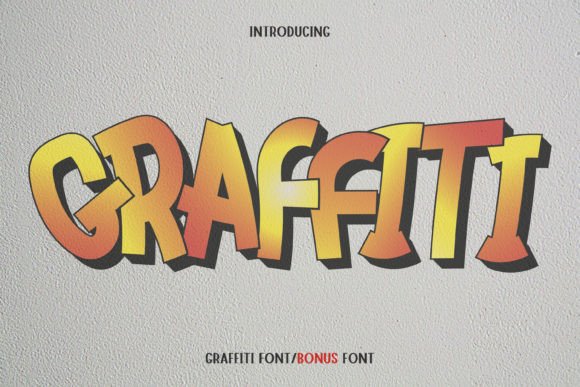
Graffiti Font: The Ultimate Guide to Creating Eye-Catching Headlines and Logos
Graffiti font is a type of display font that has gained immense popularity in recent years due to its unique and attention-grabbing style. It is an ideal choice for creating headlines, logos, advertising, and other visual elements that require a bold and captivating look. In this article, we will explore the world of graffiti fonts, their characteristics, and how to use them effectively in your designs.
What is Graffiti Font?
Graffiti font is a type of font that mimics the style of graffiti art. It is characterized by its bold, colorful, and often stylized letters, which are typically sprayed or painted on walls, buildings, or other surfaces. Graffiti fonts are designed to replicate this unique style, making them perfect for creating eye-catching headlines, logos, and other visual elements.
Characteristics of Graffiti Font
Graffiti fonts have several distinct characteristics that set them apart from other types of fonts. Some of the key features of graffiti fonts include:
- Bold and colorful: Graffiti fonts are known for their bold and vibrant colors, which make them stand out from the crowd.
- Stylized letters: Graffiti fonts often feature stylized letters with unique shapes, sizes, and orientations.
- Urban feel: Graffiti fonts have an urban, edgy feel that makes them perfect for designs that require a bold and modern look.
- Highly customizable: Graffiti fonts can be customized to fit your specific design needs, including changing colors, shapes, and sizes.
Uses of Graffiti Font
Graffiti fonts are incredibly versatile and can be used in a variety of design applications, including:
- Headlines and titles: Graffiti fonts are perfect for creating eye-catching headlines and titles that grab attention.
- Logos and branding: Graffiti fonts can be used to create unique and memorable logos and branding elements.
- Advertising: Graffiti fonts are ideal for creating bold and attention-grabbing ads that stand out from the crowd.
- Posters and flyers: Graffiti fonts can be used to create vibrant and eye-catching posters and flyers.
Benefits of Using Graffiti Font
Using graffiti fonts in your designs offers several benefits, including:
- Increased visibility: Graffiti fonts are designed to grab attention, making them perfect for designs that require high visibility.
- Unique style: Graffiti fonts offer a unique and stylish look that sets them apart from other types of fonts.
- Customization: Graffiti fonts can be customized to fit your specific design needs, making them highly versatile.
- Memorability: Graffiti fonts can help create memorable designs that stick in people’s minds.
How to Use Graffiti Font Effectively
To use graffiti fonts effectively in your designs, follow these tips:
- Choose the right font: Select a graffiti font that fits your design style and requirements.
- Use contrasting colors: Use contrasting colors to make your text stand out.
- Keep it simple: Keep your design simple and avoid cluttering it with too much text or graphics.
- Experiment with different styles: Experiment with different graffiti font styles to find the one that works best for your design.
Popular Graffiti Fonts
Some popular graffiti fonts include:
- Graffiti Queen: A bold and colorful graffiti font perfect for headlines and titles.
- Urban Graffiti: A stylized graffiti font with a urban feel.
- Spray Paint: A graffiti font that mimics the look of spray paint.
- Street Art: A graffiti font that features stylized letters and shapes.
Graffiti fonts are a powerful tool for creating eye-catching and attention-grabbing designs. With their bold and colorful style, graffiti fonts are perfect for headlines, logos, advertising, and other visual elements that require a unique and captivating look. By understanding the characteristics, uses, and benefits of graffiti fonts, you can create stunning designs that grab attention and leave a lasting impression.